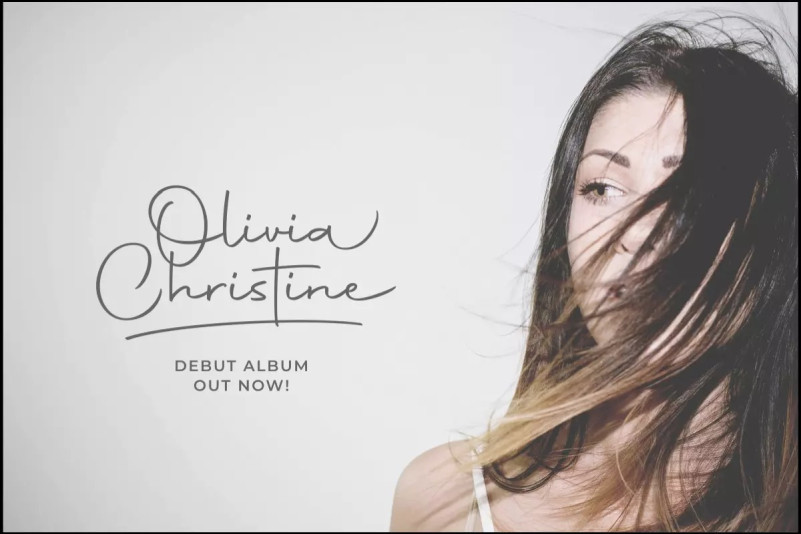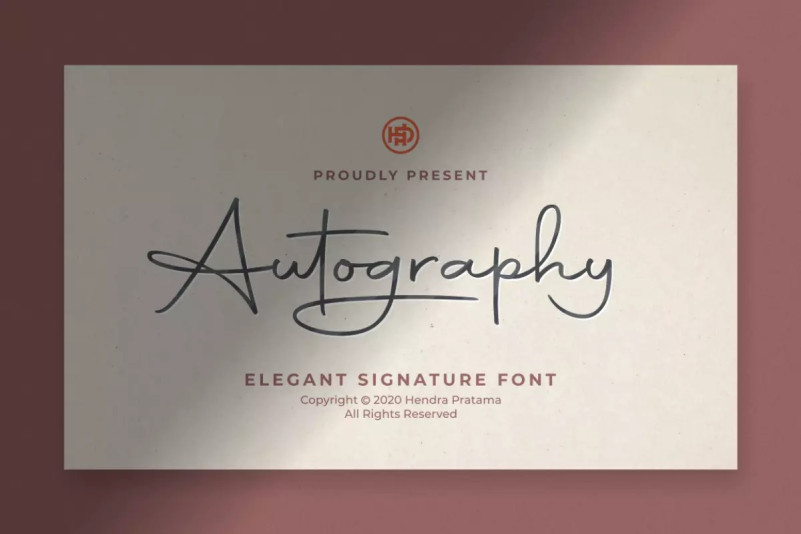
Autography Script Font
Autography Handwritten Font is an elegant charming handwritten typeface to improve your typography design looks modern and stunning. Made from font designer named Hendra Pratama. Very usable for creating logotype, autographs or digital signature for your personal namecard or brand. It is also suitable for cosmetics poster, fashion magazine, book cover, movie title or a simple quotes design.